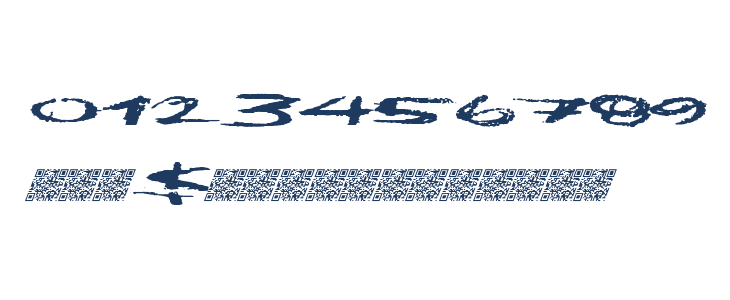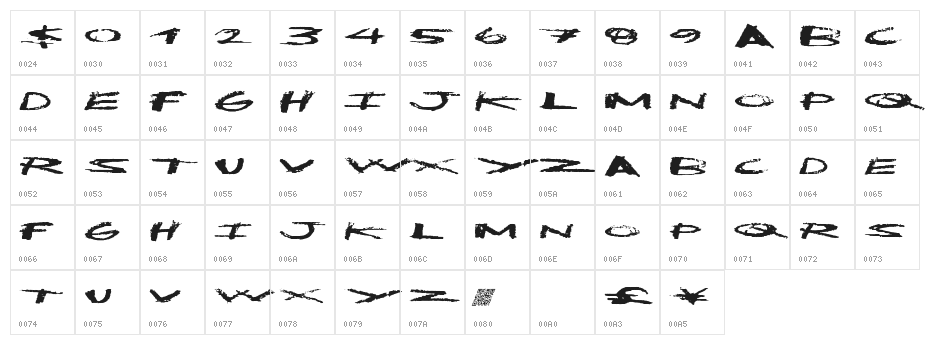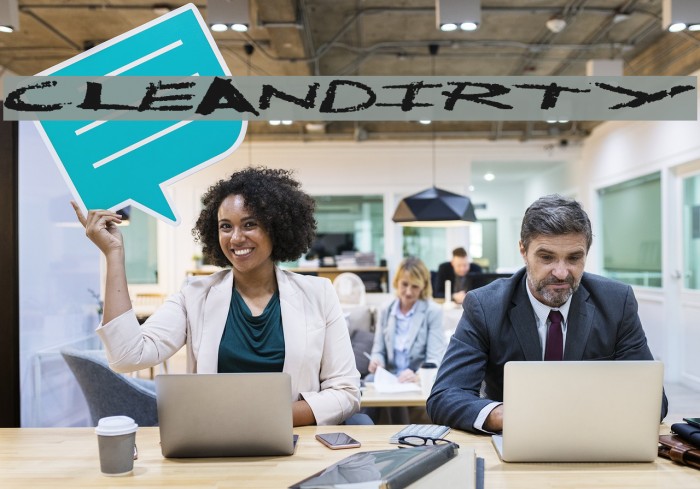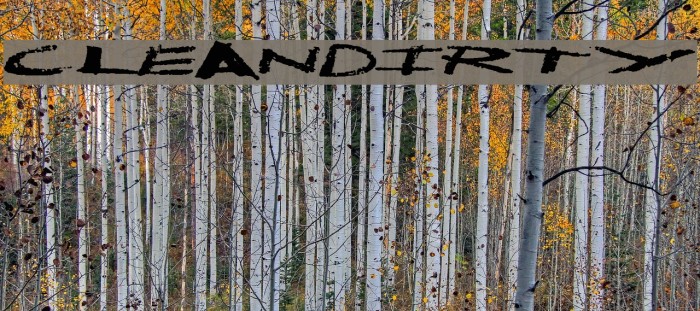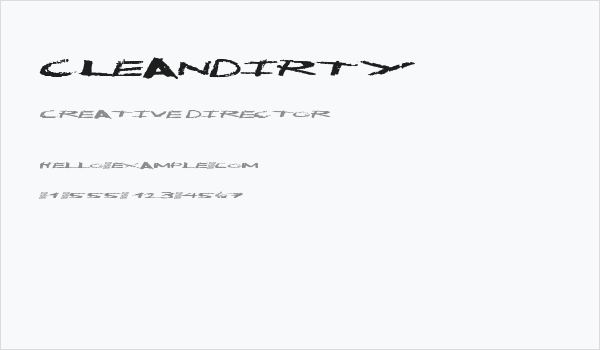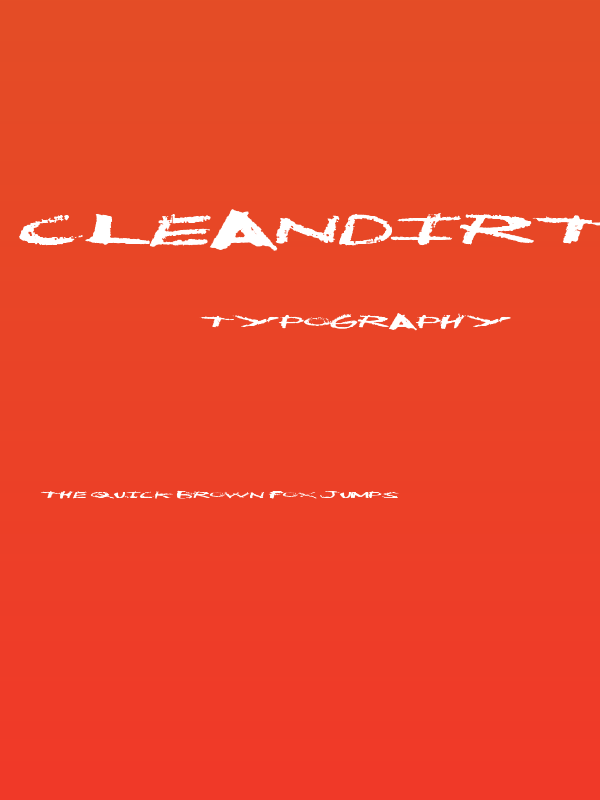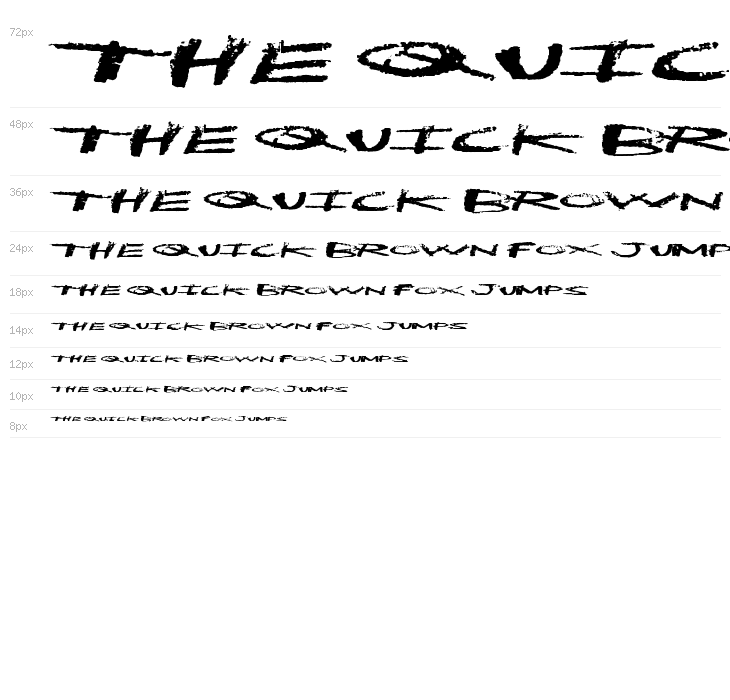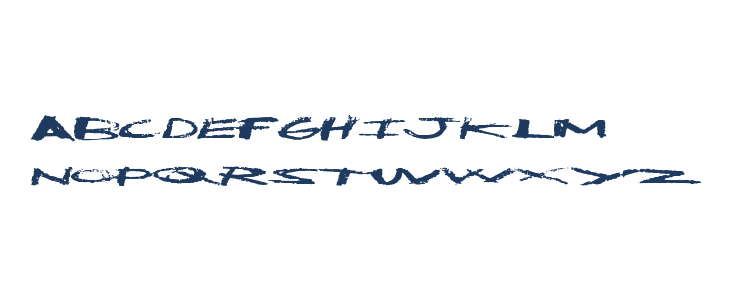
CleanDirty Font
CleanDirty Description
This font features a bold and dynamic brushstroke style, giving it a rugged and energetic appearance. The characters are designed with a distressed texture, creating a sense of movement and spontaneity. The uppercase and lowercase letters maintain a consistent style, with varying thicknesses that add to the font's expressive nature. The numbers and special characters are equally bold, ensuring a cohesive look across all elements. This font's unique style makes it stand out, perfect for projects that require a strong visual impact.
| Overall Style | Modern, Artistic |
| Proposed Projects | Ideal for posters, album covers, streetwear branding, and any project needing a bold, artistic touch. |